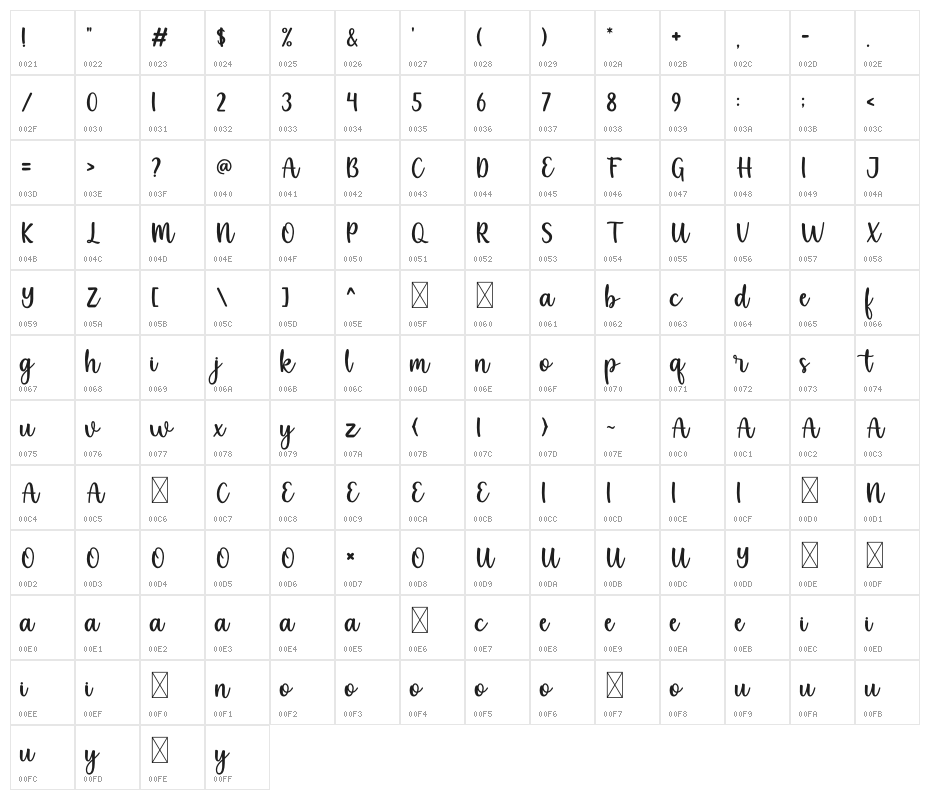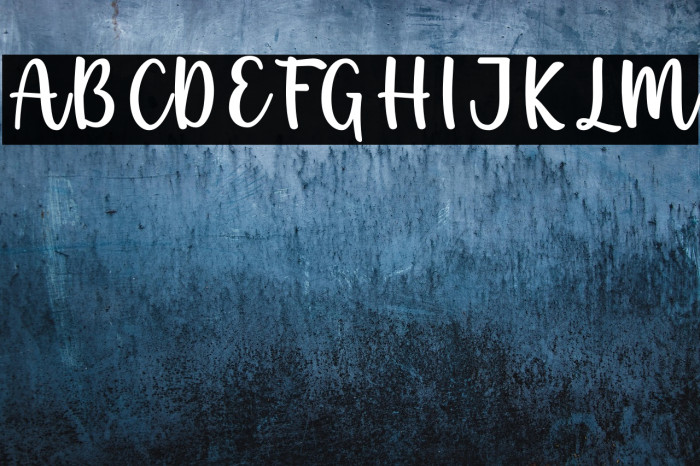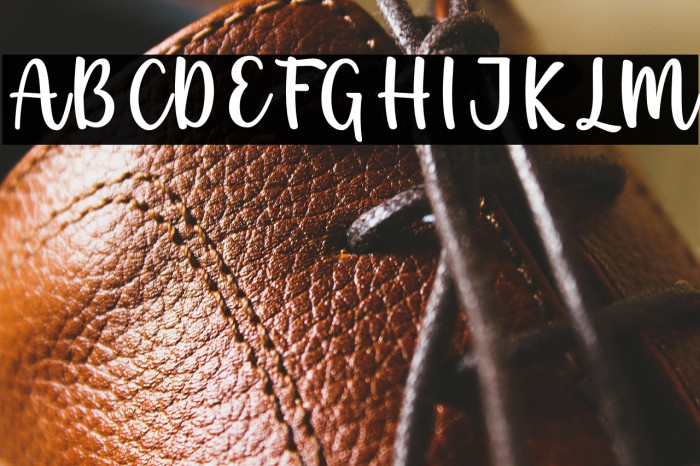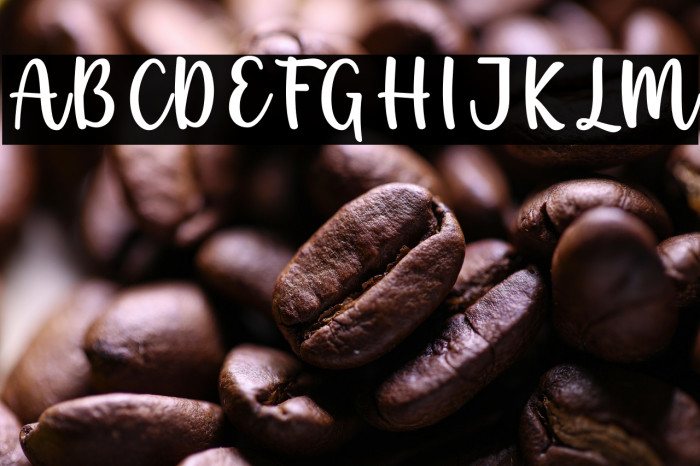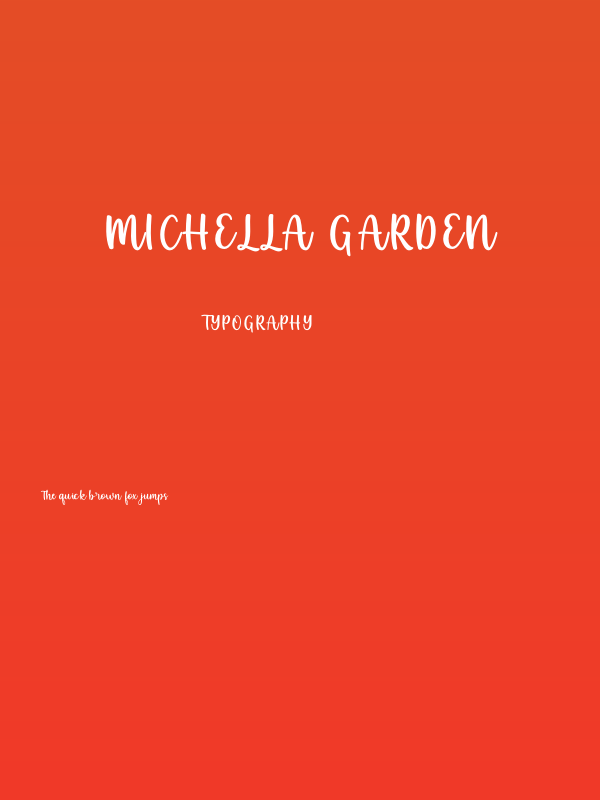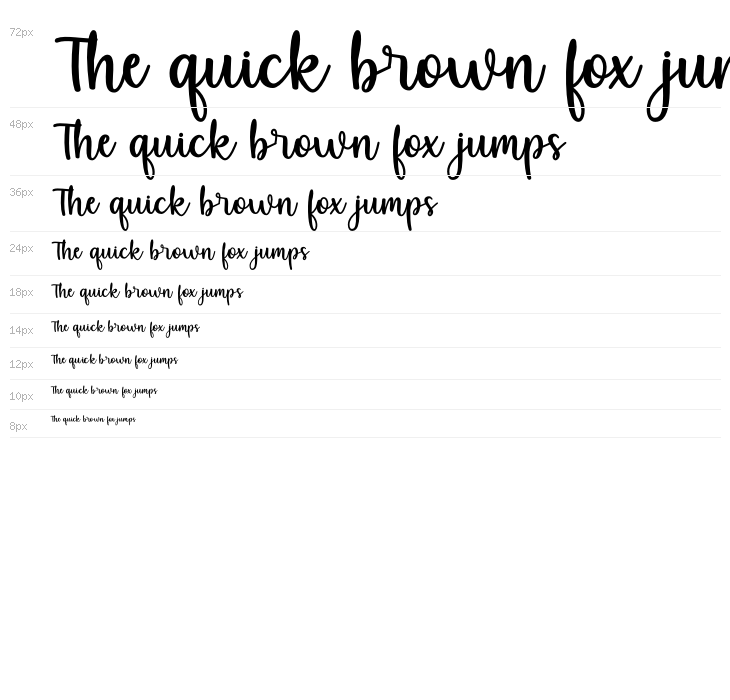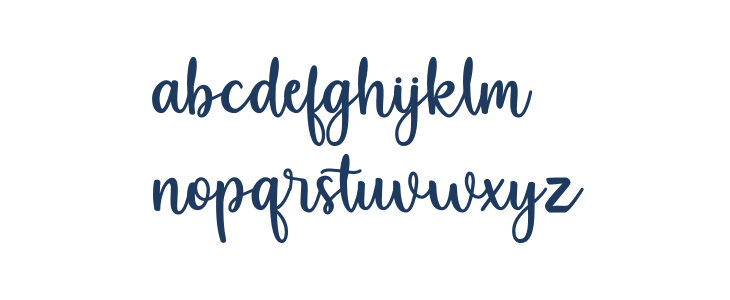
Michella Garden Font
Michella Garden Description
This font features a playful and flowing script style, characterized by its smooth, rounded curves and elegant strokes. The uppercase letters are bold and slightly exaggerated, giving a sense of whimsy and charm. Lowercase letters maintain a consistent flow, with some letters featuring loops and swashes that add to the overall decorative feel. Numbers are clear and legible, maintaining the same playful style. Special characters are well-integrated, ensuring versatility in various design contexts. The font's overall appearance is both friendly and stylish, making it suitable for creative and informal projects.